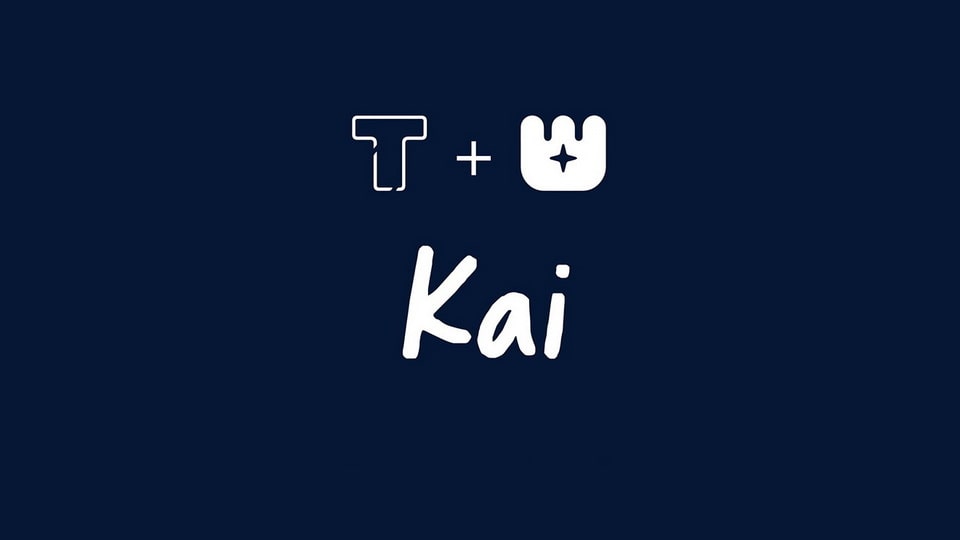
Download LT Kai font, a handwritten felt tip typeface that is suitable for use in a variety of situations. This font is a great choice for creating a unique and stylish look for your projects.